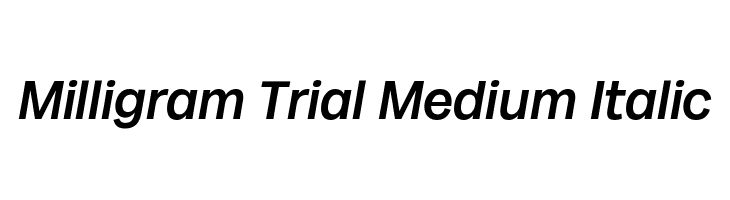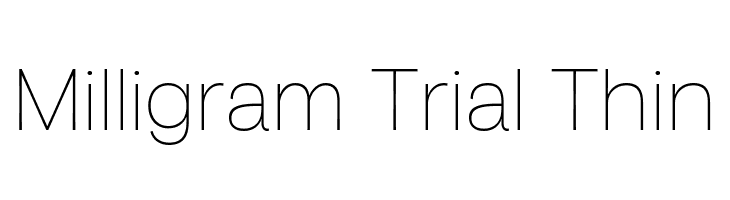
A bold, modern font with clean lines and excellent legibility.
A bold, italicized sans-serif font with a modern and dynamic style.
A bold, modern sans-serif font with strong, thick strokes.
A bold, italic font with a modern and dynamic style.
A bold, heavy font with strong, clean lines and excellent legibility.
A bold, heavy italic font with a modern and dynamic style.
A modern, italic sans-serif font with a clean and dynamic style.
A clean, modern font with a minimalist and balanced design.
A modern, light, italic sans-serif font with elegant slant and clean design.
A clean, modern sans-serif font with medium weight and balanced spacing.